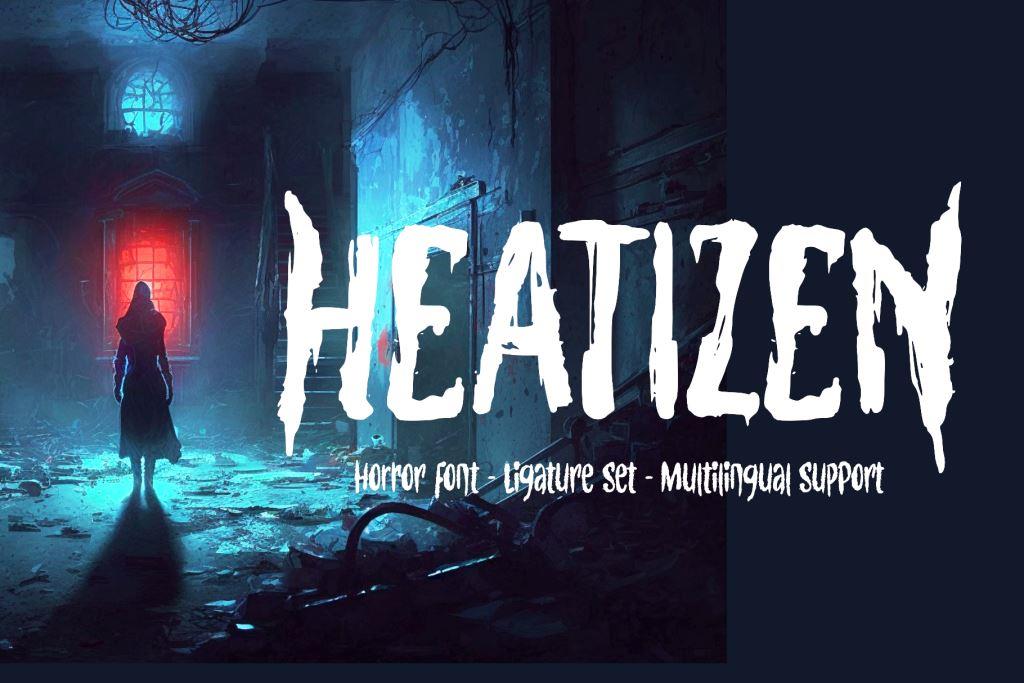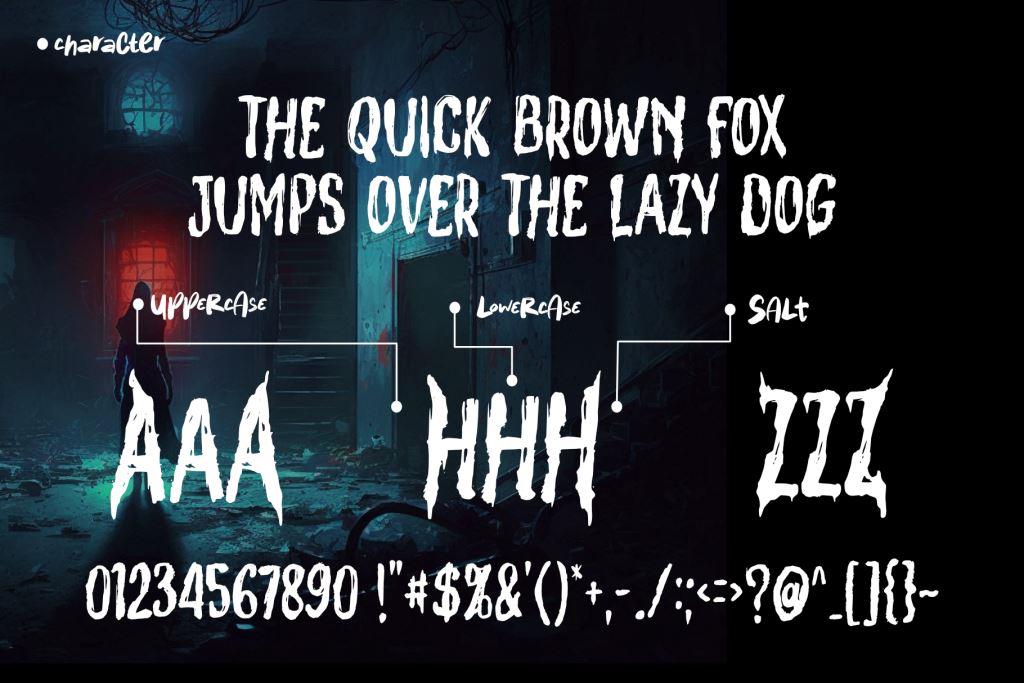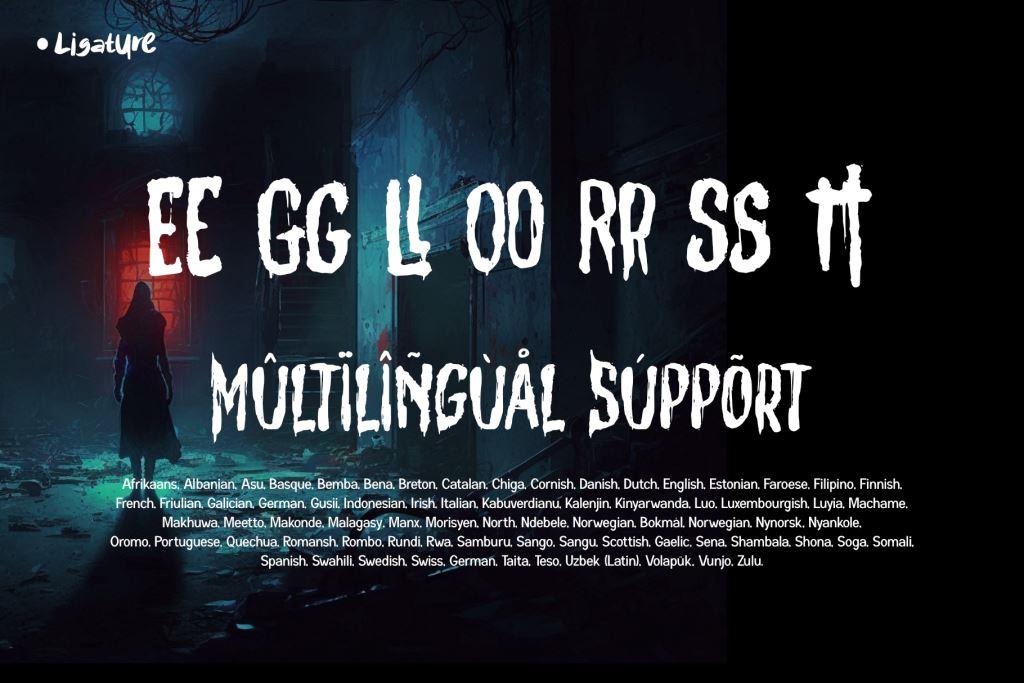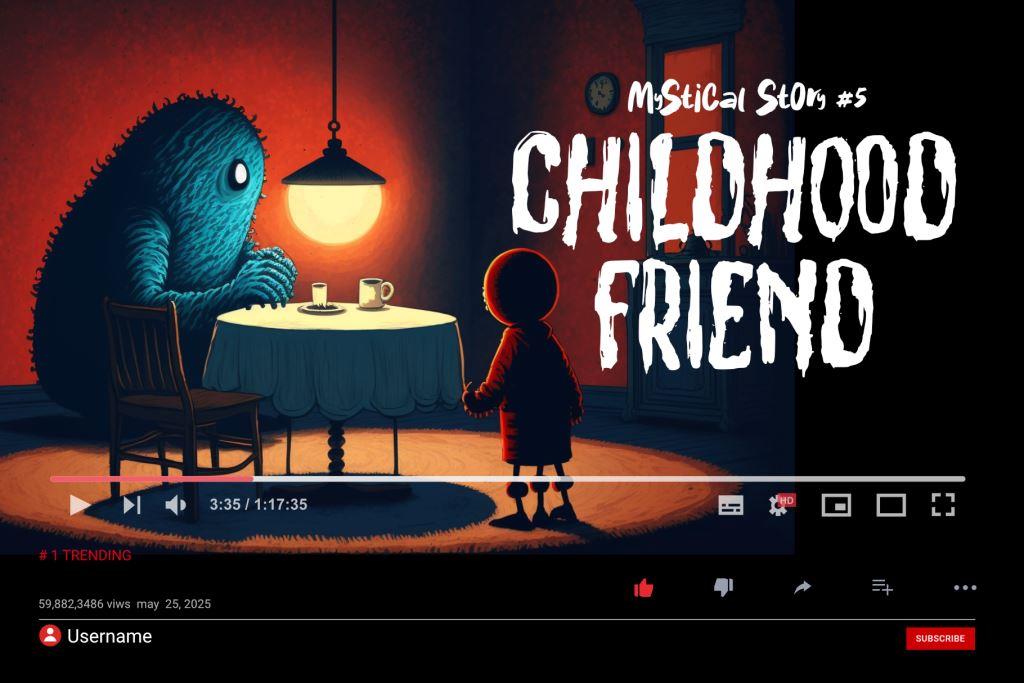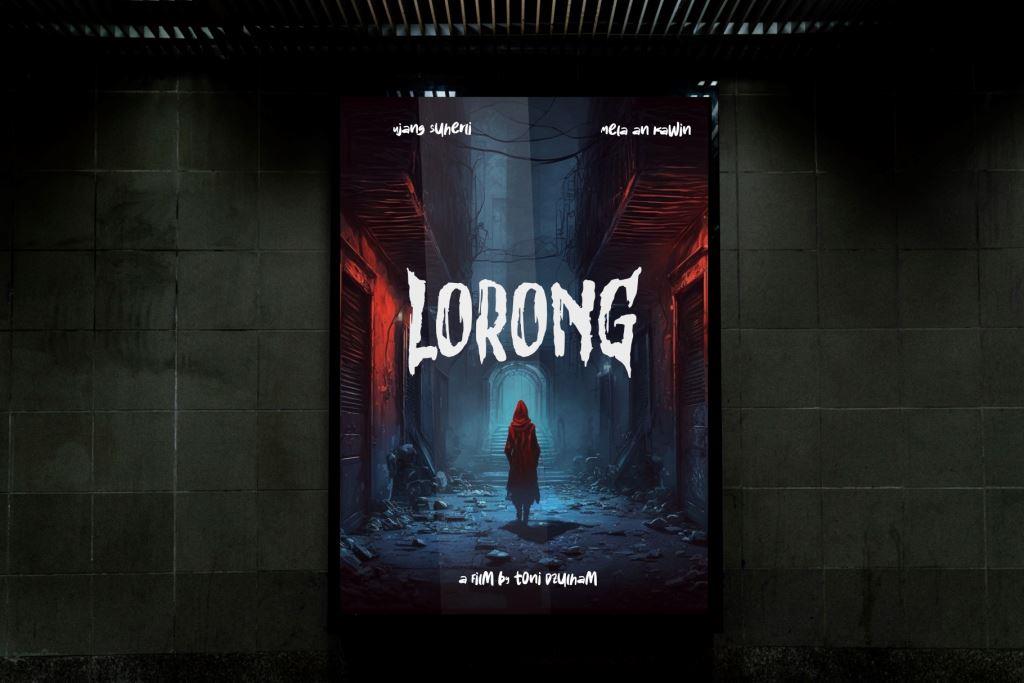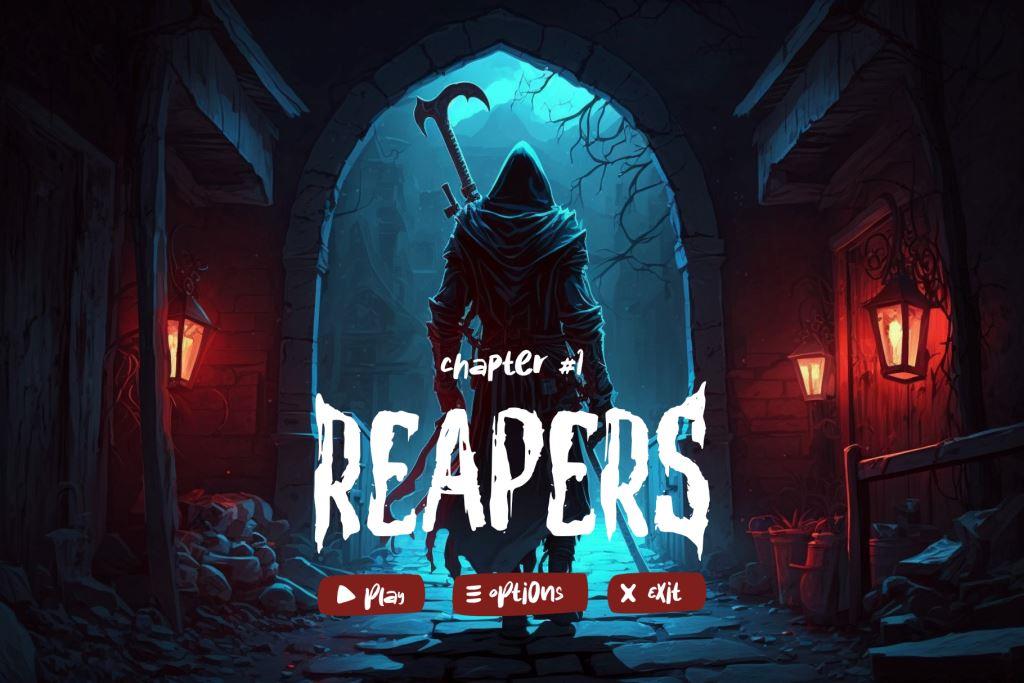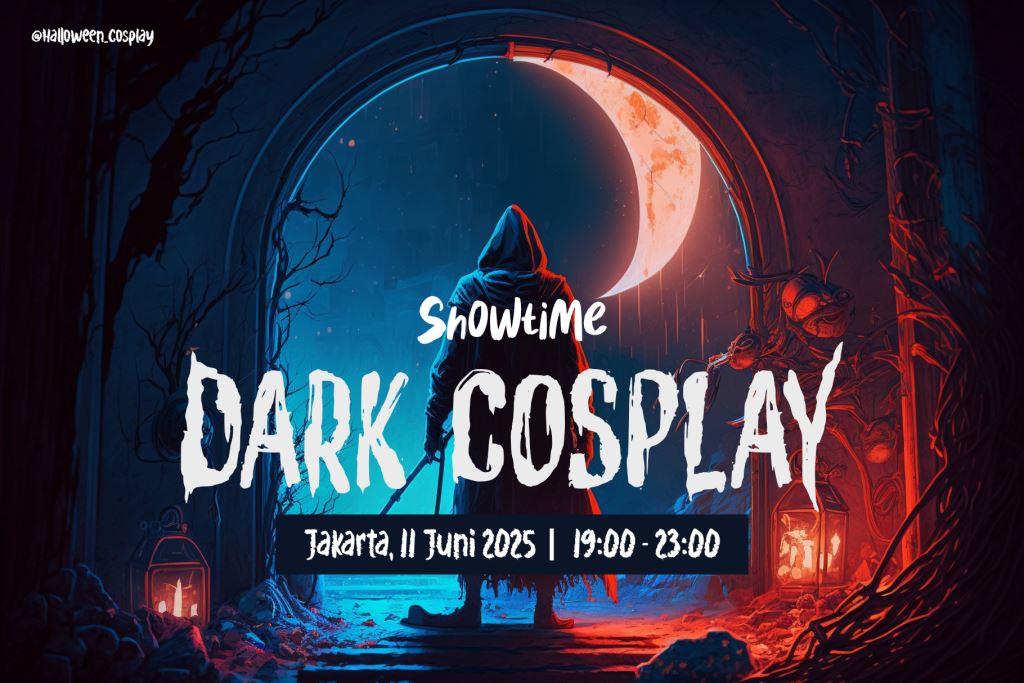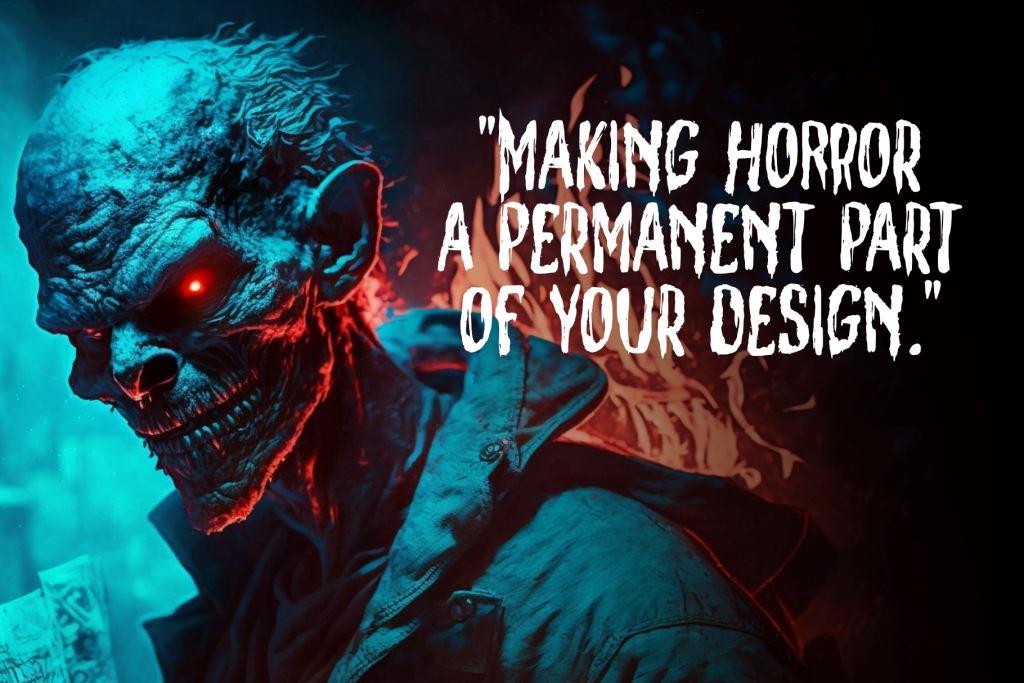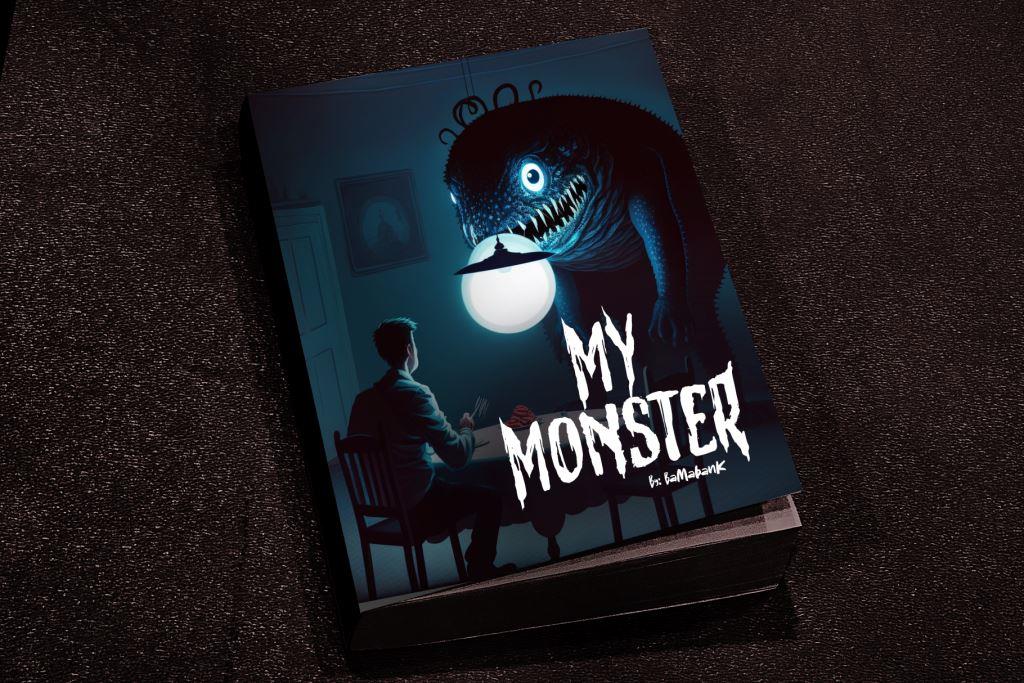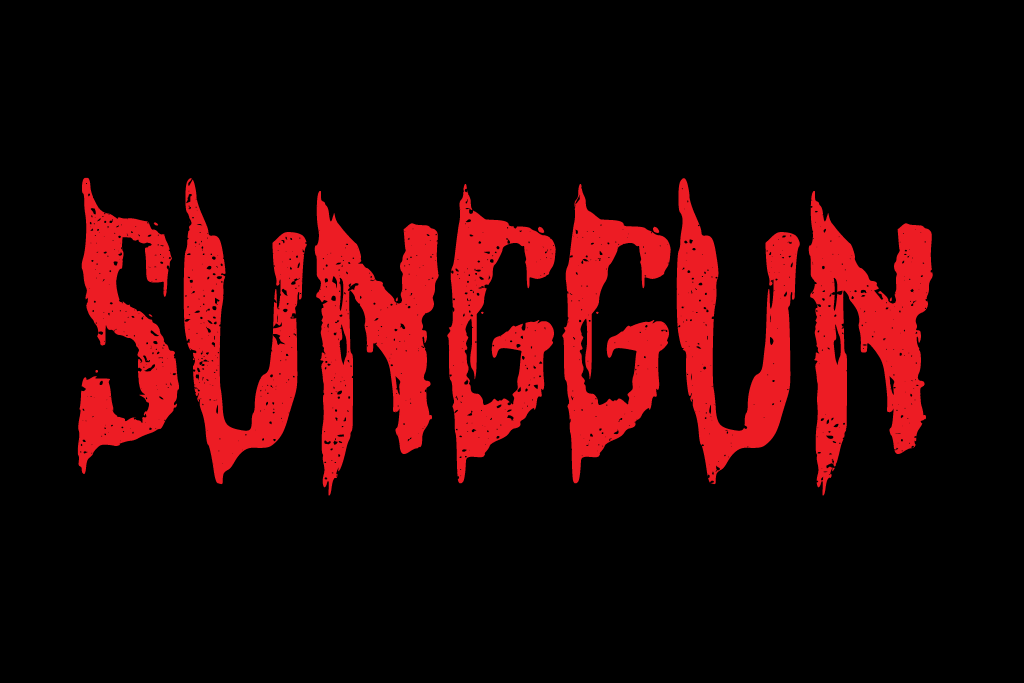
- Heatizen
“Heatizen” is a unique and captivating horror font designed specifically to evoke a chilling and terrifying ambiance in designs related to the horror genre. By combining the aesthetics of hand-drawn sketches with rough and erratic strokes, this font creates a dark, mysterious, and unpredictable impression.
Each letter in the “Heatizen” font appears as if it has been drawn by hand, providing a personal touch and human presence that adds uniqueness to designs utilizing this font. Its rough and irregular lines create a hair-raising effect on readers and evoke the aesthetics often found in classic horror films.
By using “Heatizen” in horror-themed designs such as horror films, horror book designs, horror content, horror game titles, horror events, and other designs aiming to create a chilling atmosphere, you will be able to set the right mood and make readers or viewers feel tension and fear.
“Heatizen” is highly versatile and can be used effectively in various sizes and layouts. It works well for bold, attention-grabbing titles as well as smaller text elements seeking to add a touch of horror to the design. The font also supports a wide range of characters and punctuation marks, enabling its use in different languages and creative projects.
Whether it’s a cinematic depiction of a terrifying horror film, a book cover that piques readers’ curiosity, or a game title that pumps up the adrenaline, “Heatizen” is the perfect choice to create visually striking and spine-chilling atmospheres that will linger in the audience’s mind.
+ Ligature
+ Stylistic Alternative